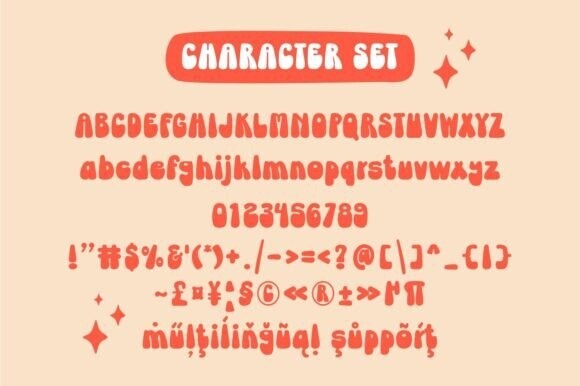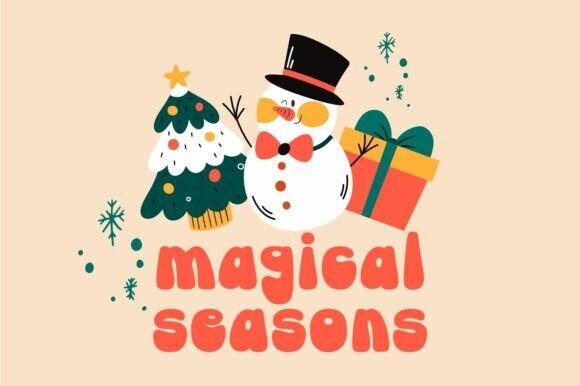
Retro Merry Font
Retro Merry Font is a bold, bubbly font inspired by vintage holiday cheer. Its rounded, playful shapes evoke nostalgia and warmth, making it perfect for Christmas cards, festive decorations, gift tags, and seasonal branding. With multilingual support and a fun retro vibe, this font effortlessly adds joy and whimsy to your holiday projects. Create magical memories with Retro Merry!